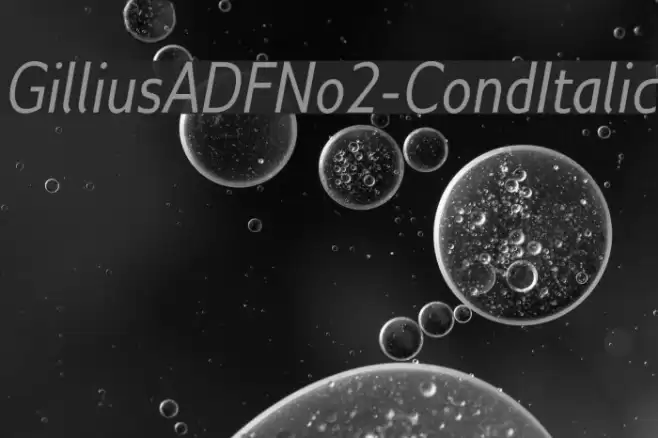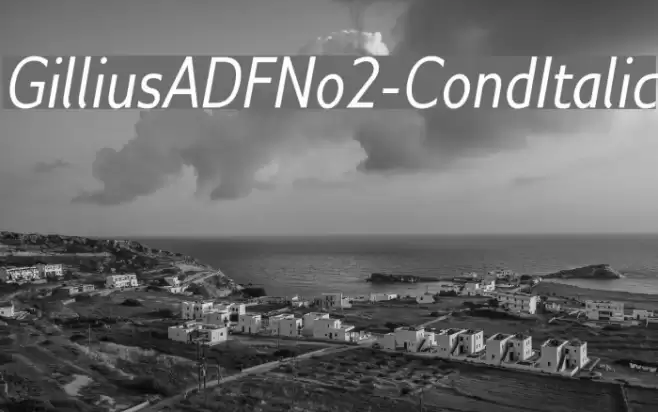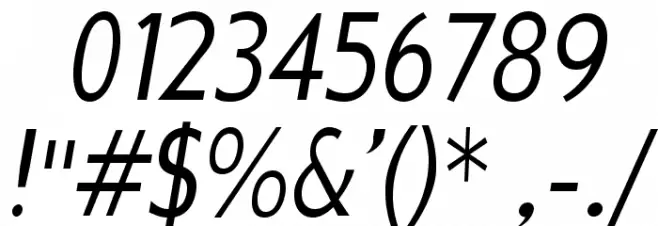
GilliusADFNo2-CondItalic Font
GilliusADFNo2-CondItalic Description
This font features a clean and modern sans-serif style with a condensed and italicized form. The characters are sleek and slightly elongated, giving a sense of elegance and sophistication. The uppercase letters are uniform in height, while the lowercase letters maintain a consistent baseline, enhancing readability. Numerals are clear and distinct, making them suitable for various applications. The special characters are well-defined, adding versatility to the font's usage. The overall design is minimalistic yet impactful, making it ideal for contemporary design projects.
A modern, condensed, and italic sans-serif font with sleek, elongated characters from Uncategorized fonts.
- Proposed Projects: Ideal for branding, editorial design, advertising, and digital interfaces where a modern and elegant appearance is desired.